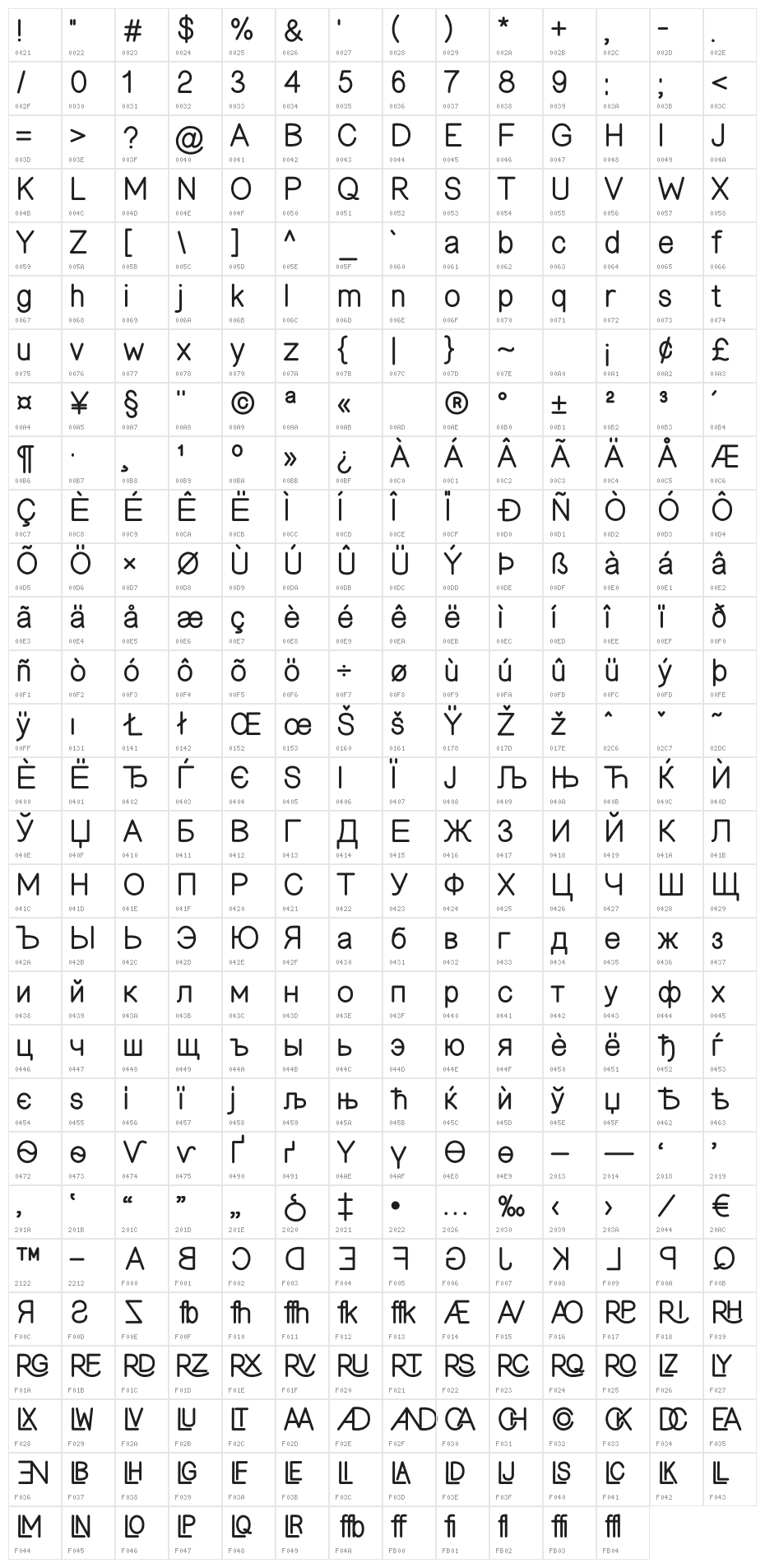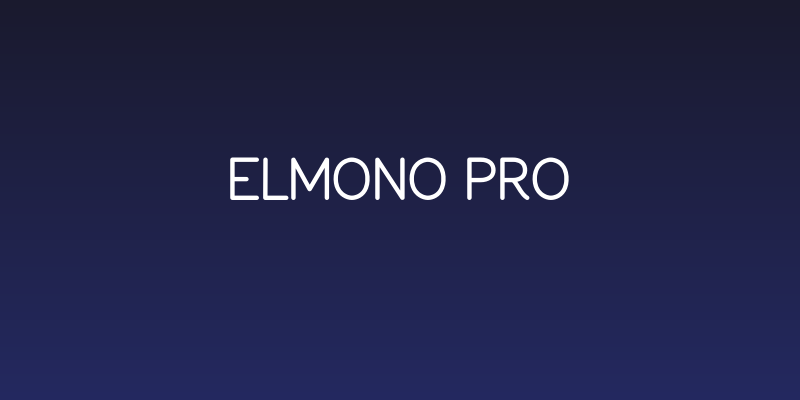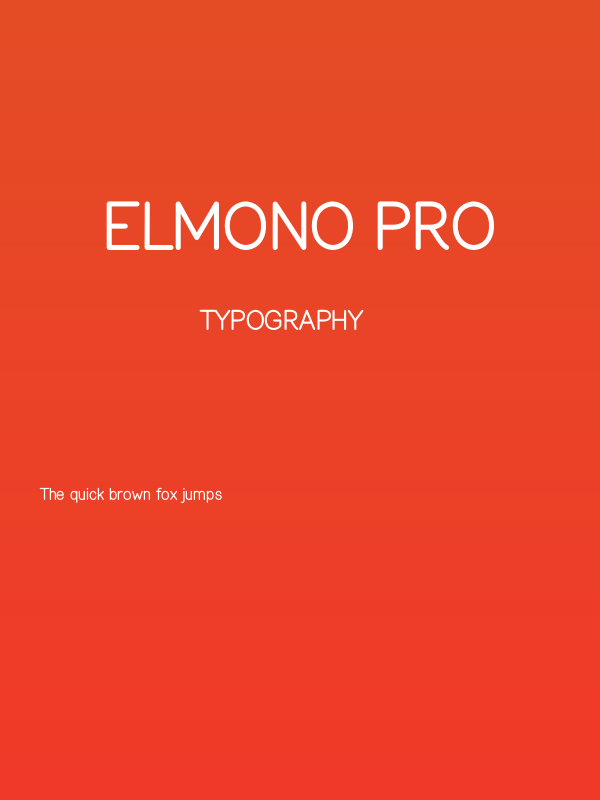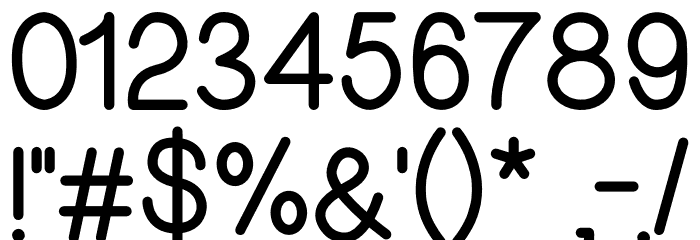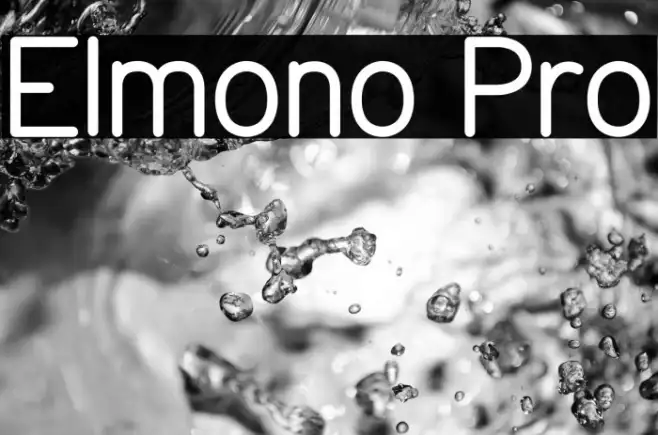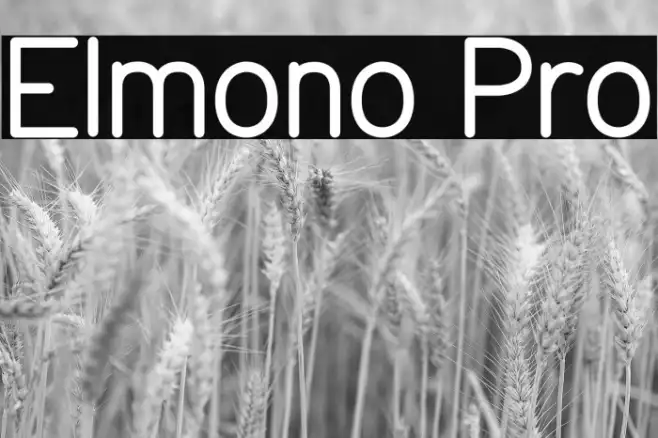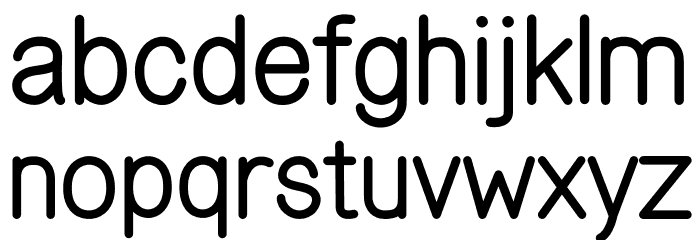
Elmono Pro Font
Elmono Pro Description
This font features a clean and modern sans-serif design with uniform stroke widths, giving it a sleek and contemporary appearance. The characters are well-proportioned, with a slightly rounded finish that adds a touch of softness to the overall look. The uppercase and lowercase letters maintain a consistent style, ensuring readability and versatility. The numerals are clear and distinct, making them suitable for various applications. Special characters are included, enhancing the font's utility for diverse design needs.
| Proposed Projects | Ideal for digital interfaces, branding, signage, and editorial design. |